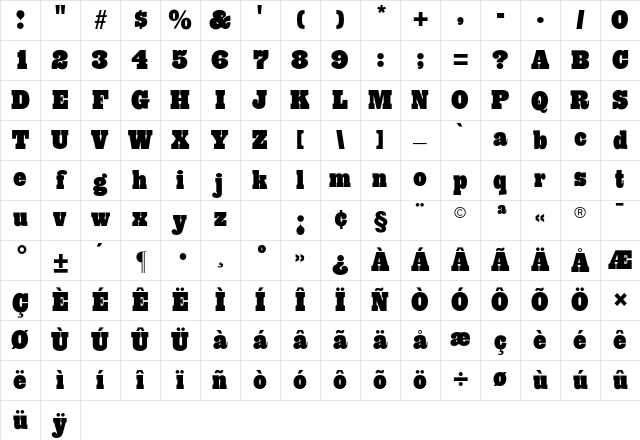
Behemoth CG SemiCond Regular
Foundry: Miles Inc.
Design Context for Behemoth CG SemiCond
Behemoth CG SemiCond is a composed and adaptable typeface that performs quietly and consistently across a wide range of design contexts. Its narrow stance lets it pack a punch even in space-constrained designs.